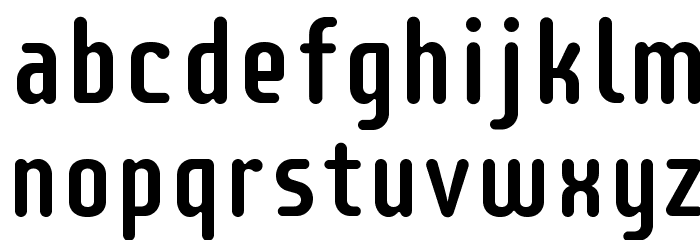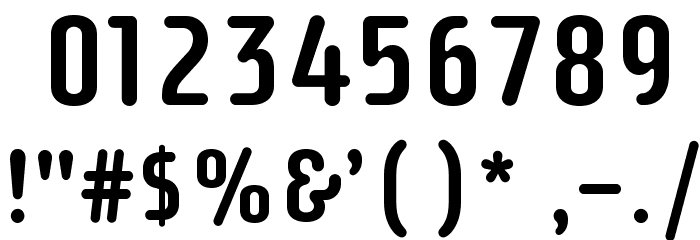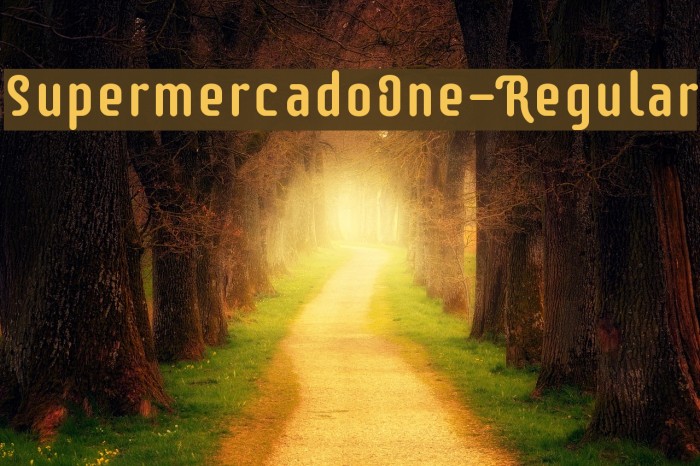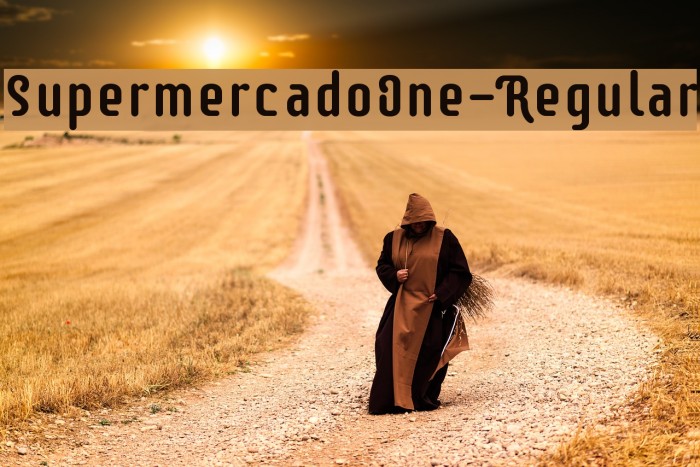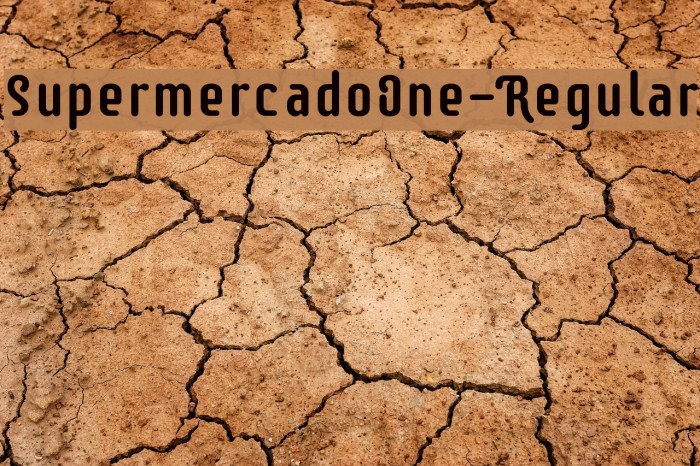
SupermercadoOne-Regular Font
This font features a bold and playful design with rounded edges and a slightly condensed structure. The uppercase letters have a unique, almost stencil-like appearance with consistent stroke widths, while the lowercase letters maintain a friendly and approachable style. The numerals are clear and easy to read, making them suitable for various applications. Special characters are well-integrated, maintaining the overall aesthetic. The font's design is modern yet retains a touch of retro charm, making it versatile for both contemporary and vintage-themed projects.
A bold, playful font with rounded edges and a modern-retro charm.
- Proposed Projects: Ideal for branding, packaging, posters, and signage that require a bold and friendly touch.